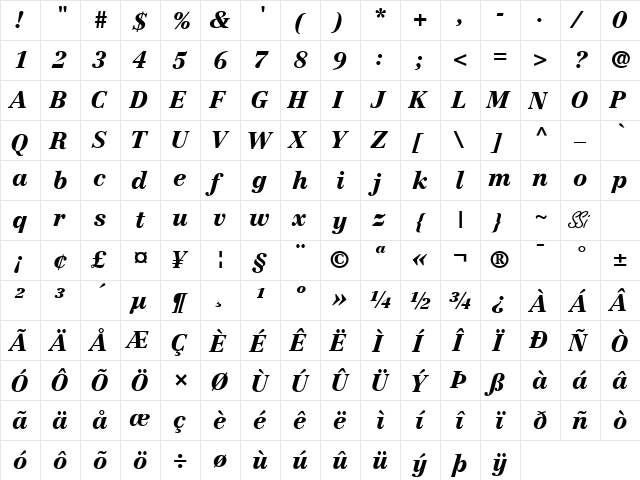
Century Reprise Black SSi Black Italic
Design Context for Century Reprise Black SSi Typeface
Century Reprise Black SSi takes a measured approach to typography — its balanced proportions and neutral character make it a reliable workhorse for both digital and print work. The dynamic lean of this cut emphasises speed and emphasis in any layout.
Pro Tip: Use Century Reprise Black SSi for emphasis, pull quotes, and subheadings where its slanted energy can add rhythm to the layout.